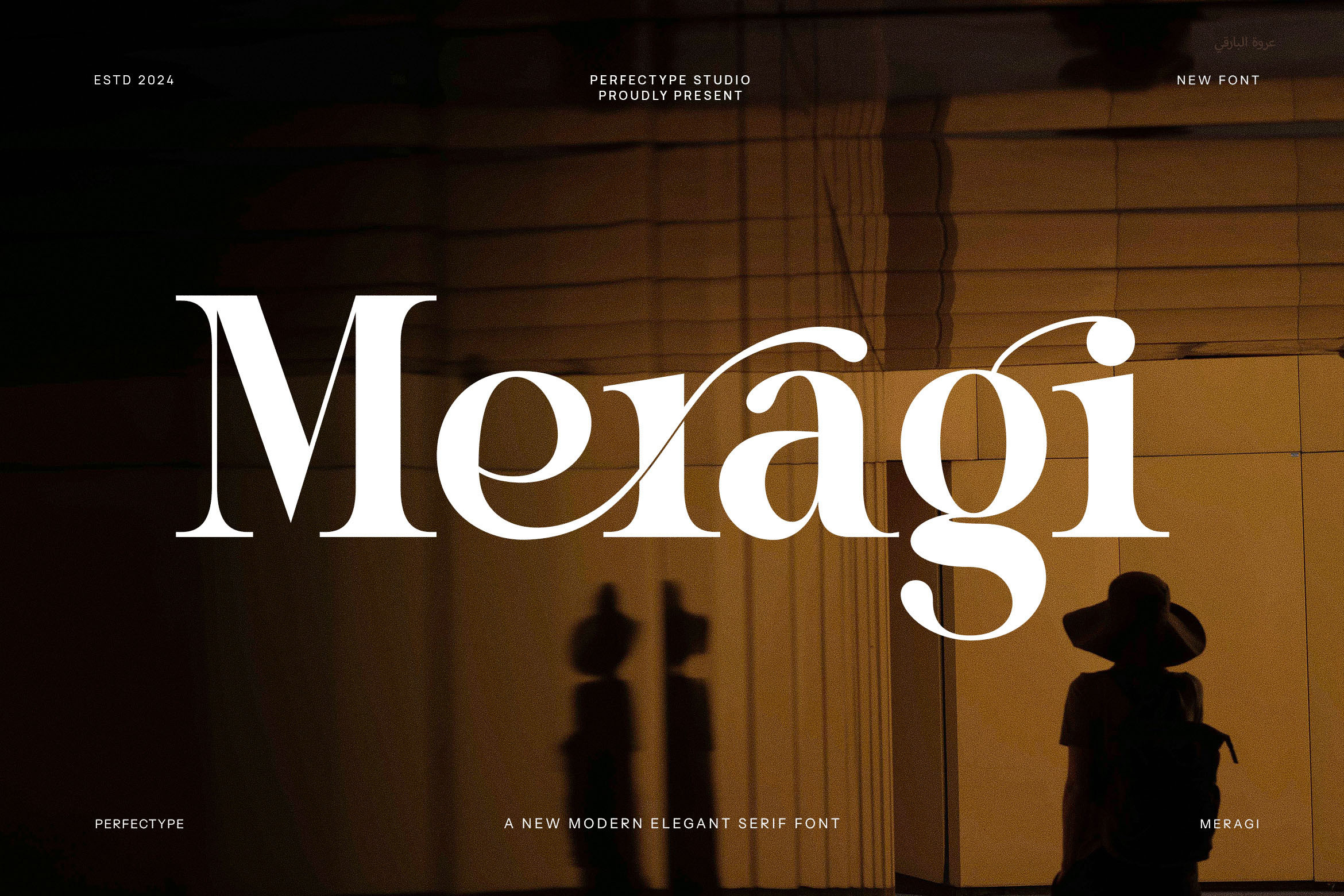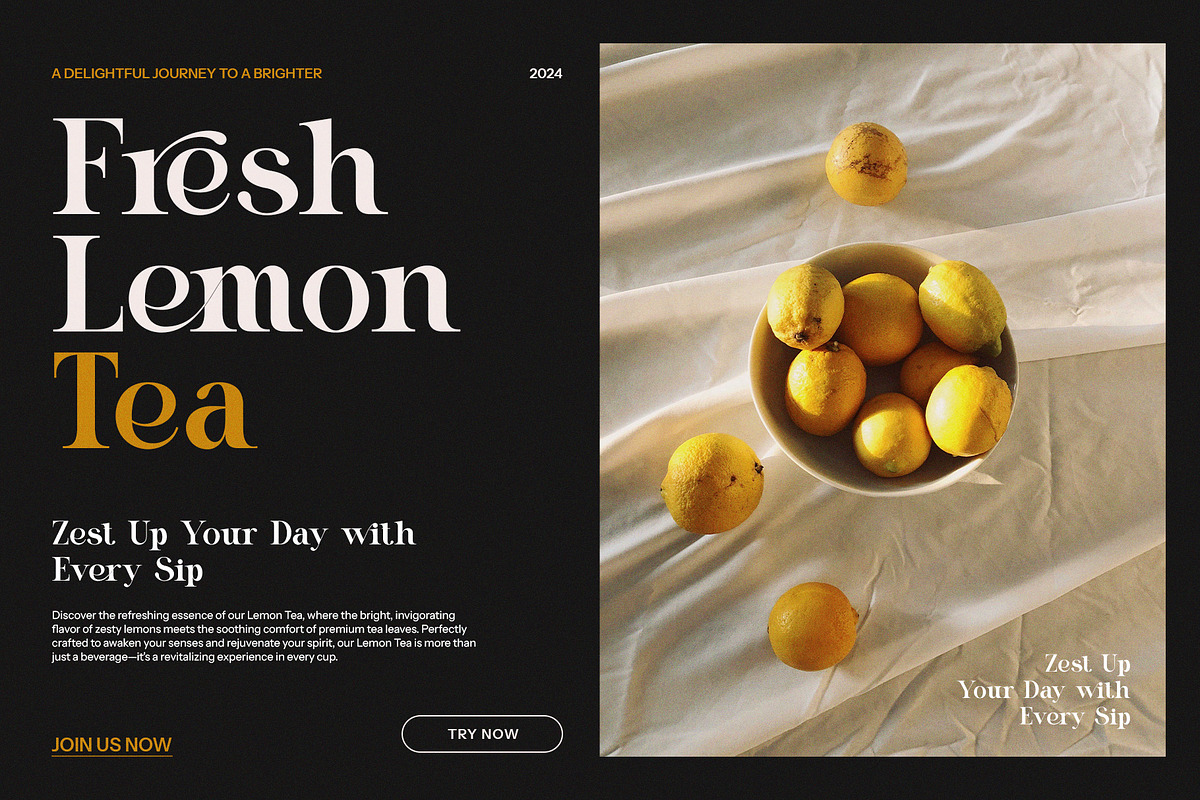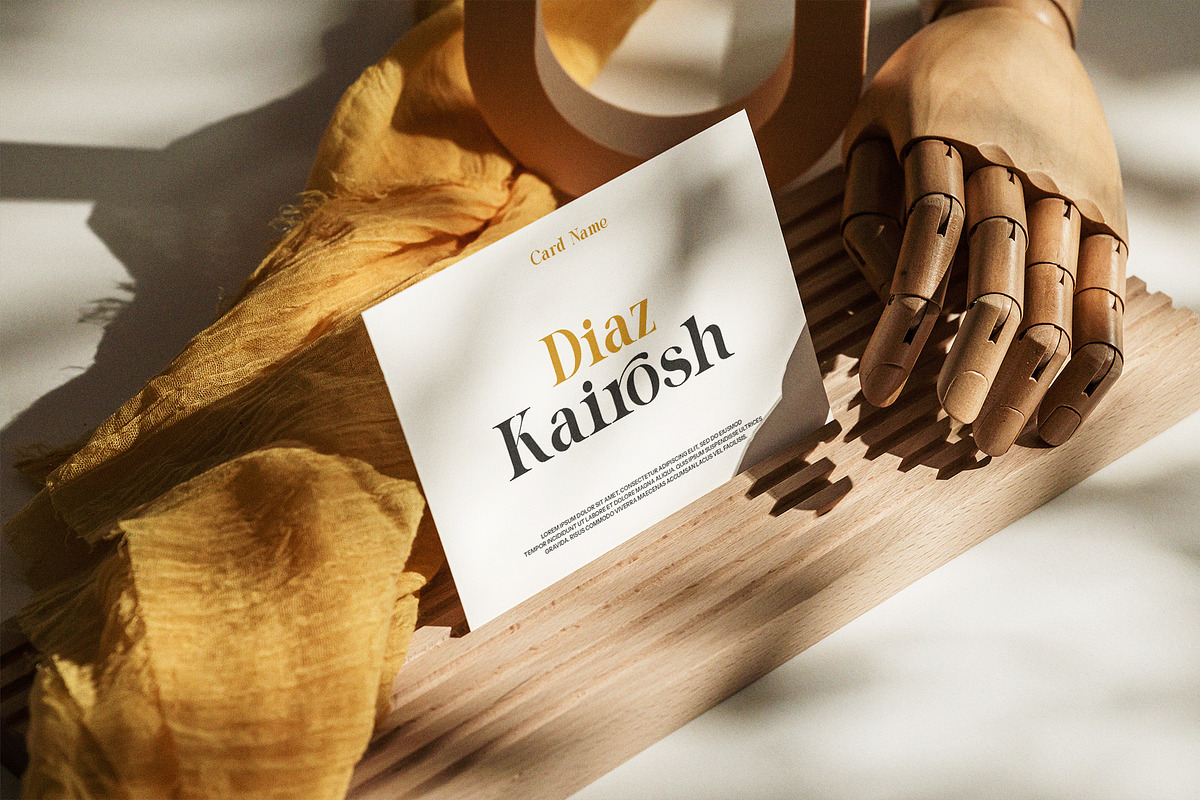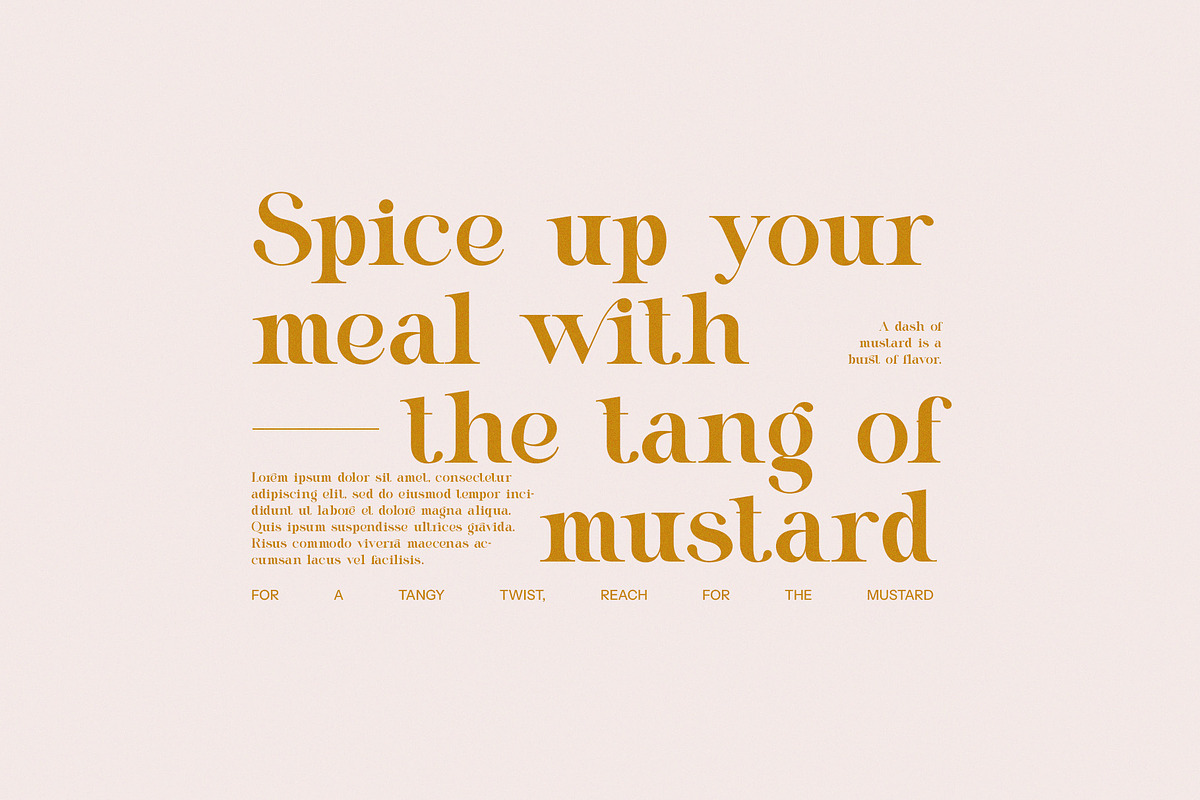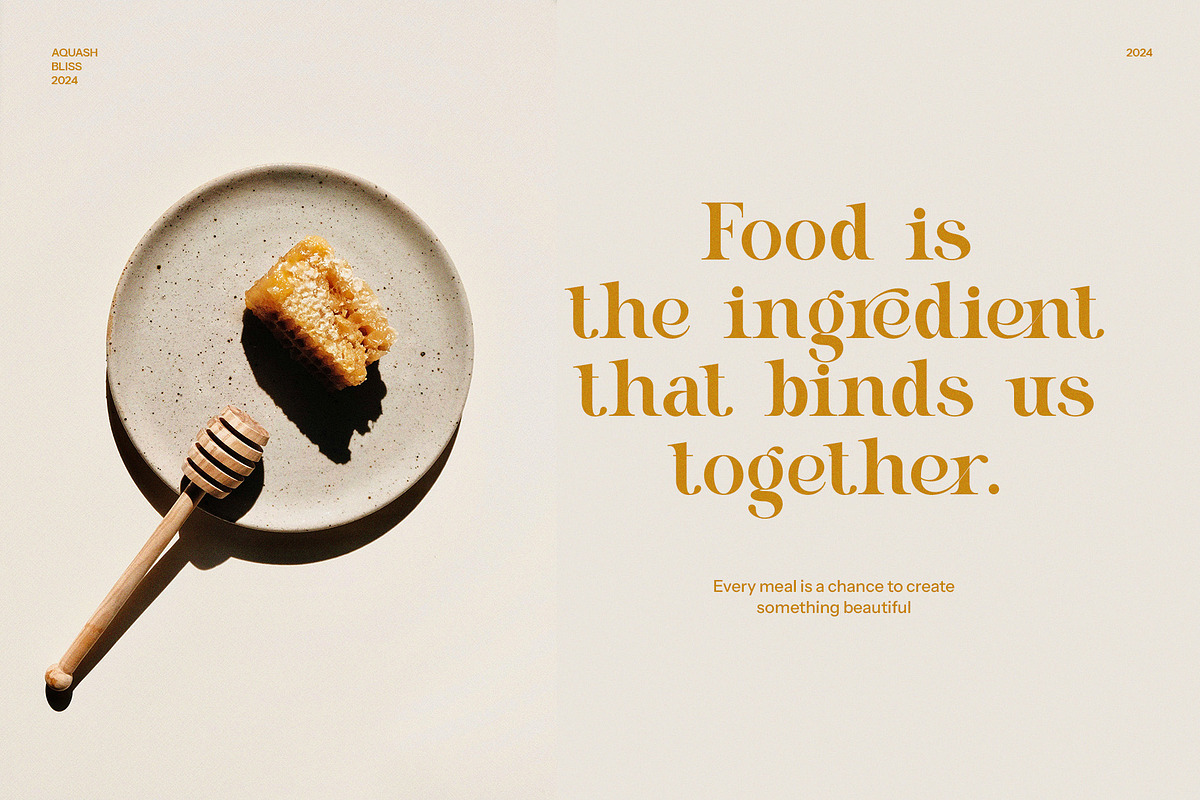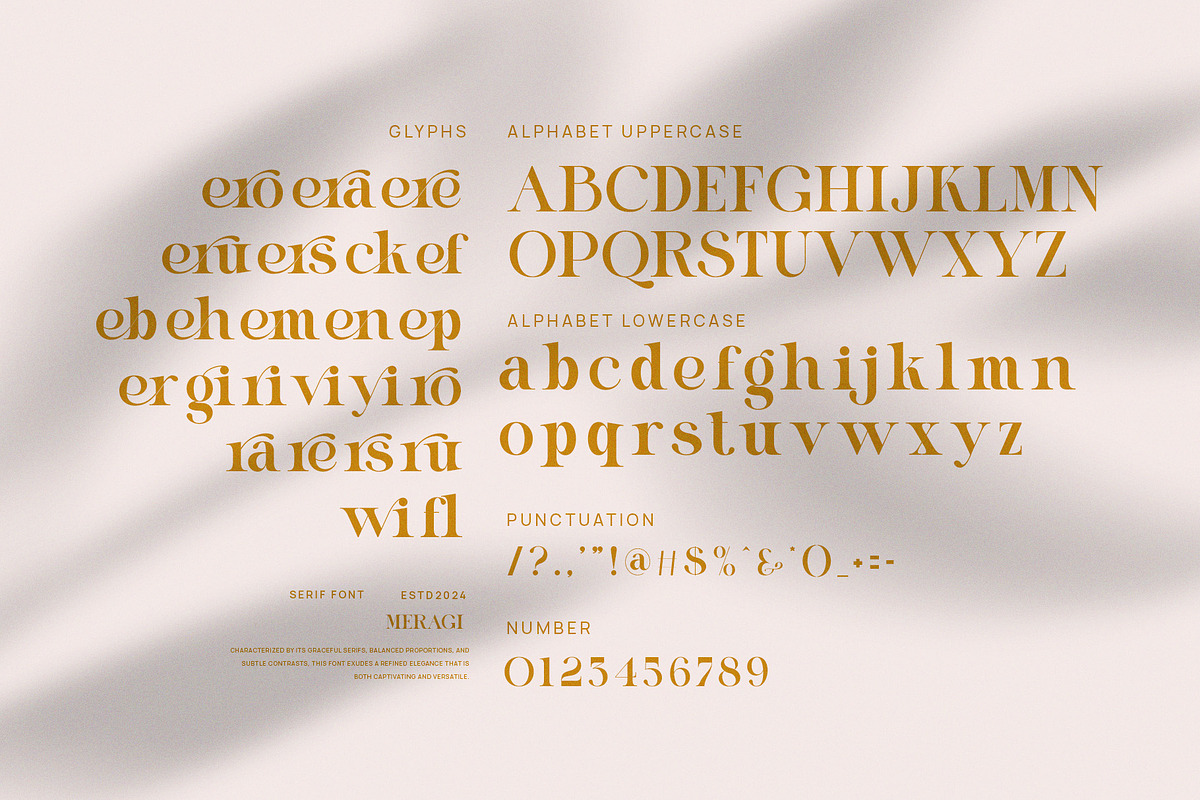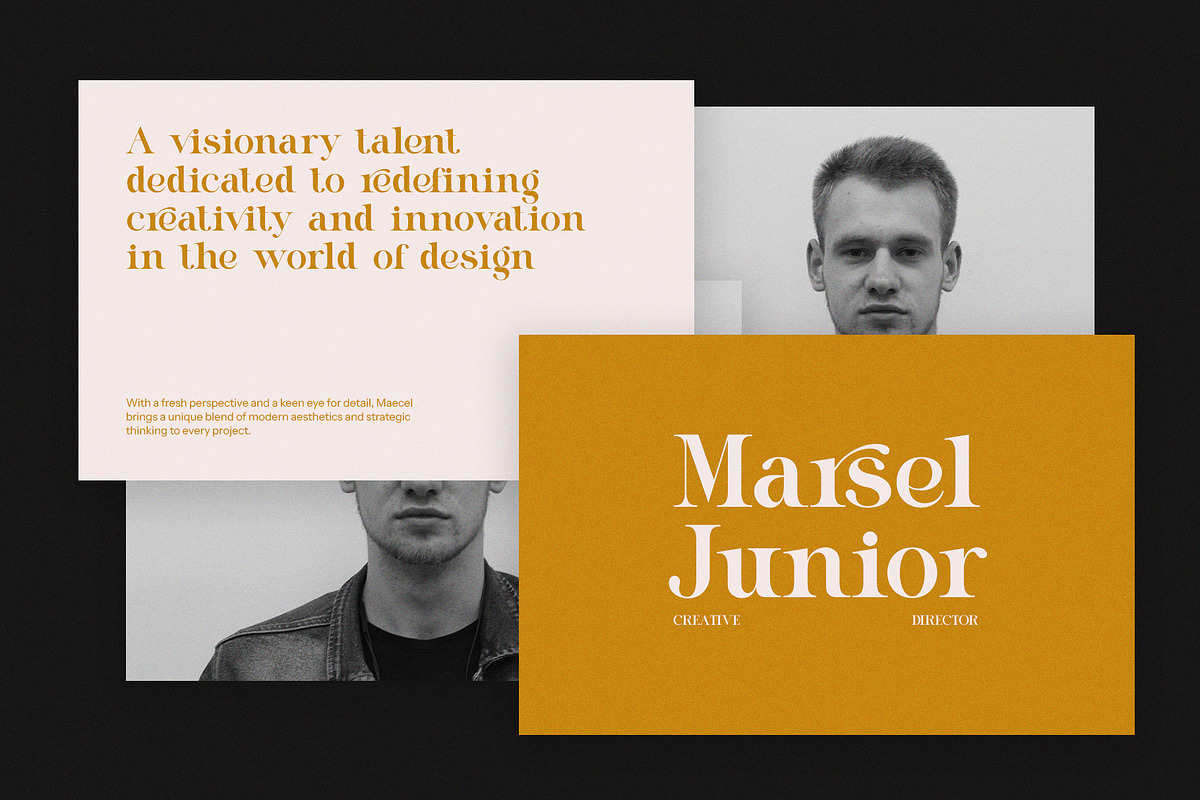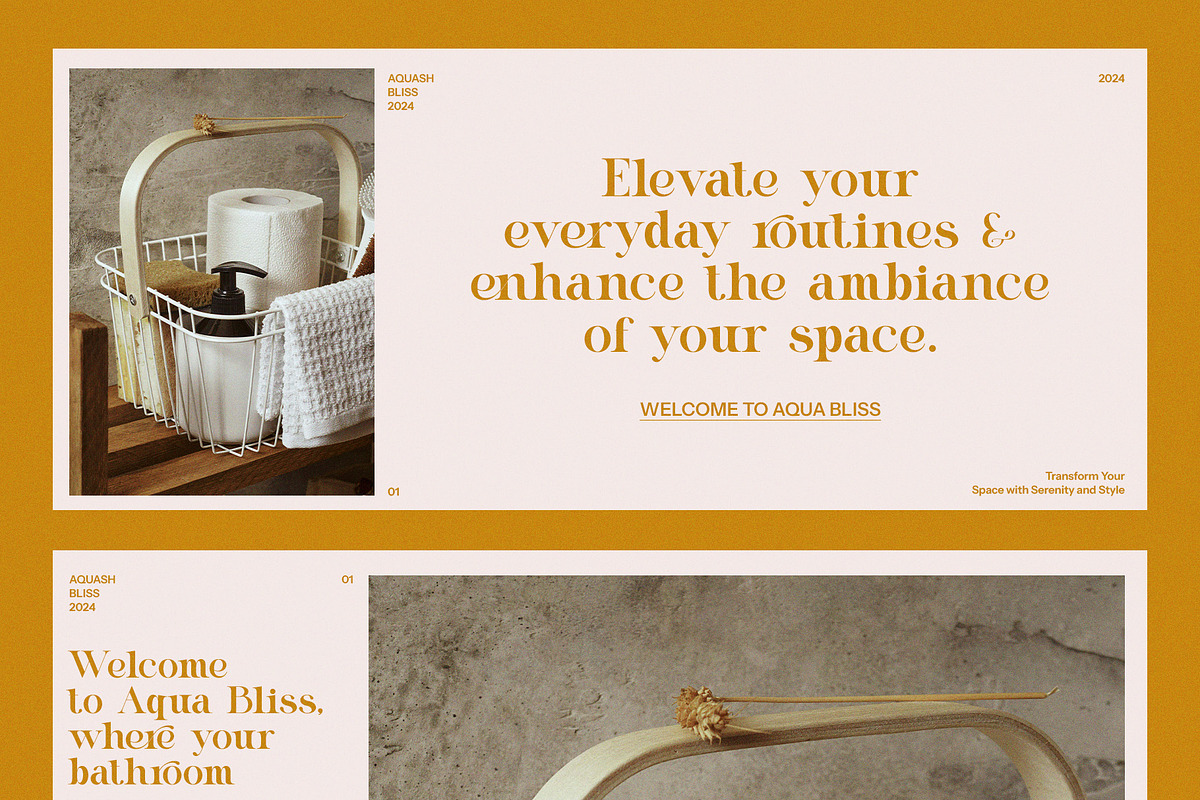
Meragi Modern Serif Font
This is a very elegant and classy font for all branding and logo designs This type of serif font is created with elegance and luxury so it is perfect for all your design needs. This font is equipped with many beautiful and unique ligature and alternate options. This type of font is very suitable for your various needs such as branding projects, logos, social media posts, advertisements, labels, product packaging, photography, wedding designs, watermarks, invitation product designs, stationery, and any project, made at a high price. readability level.